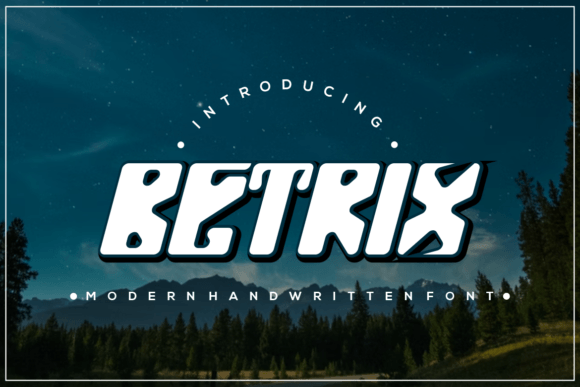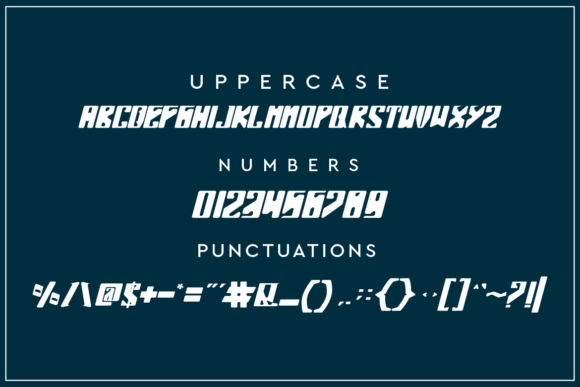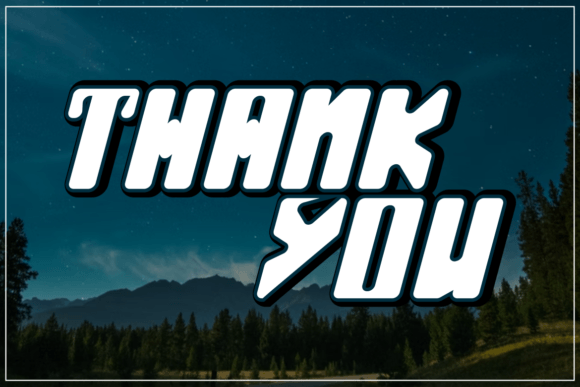
The Quest for the Perfect Font: How Betrix Stole My Heart
I’ll never forget the frustration of working on a design project, hours spent scrolling through font libraries, and yet, nothing seemed quite right. The client wanted a font that exuded elegance, modernity, and class – a tall order, indeed! That’s when I stumbled upon Betrix, a modern display font that has since become my go-to for a wide range of projects.
What Makes Betrix Special?
Betrix is a stunning display font that feels beautiful, classy, elegant, and modern all at once. Its versatility makes it perfectly suited for various projects, such as:
- Signature and stationery design
- Logo creation
- Wedding and event typography
- Magazine or book covers
- Website headers
- Clothing and fashion branding
- Packaging design
What I Love About Betrix ✨
- ✅ Elegant and modern aesthetic
- ✅ Highly versatile and adaptable
- ✅ Extensive OpenType features and glyphs
- ✅ Works beautifully in both digital and print formats
- ⚠️ May not be the best choice for body text due to its display nature
- ⚠️ Some users may find the font too ornate for certain projects
The Story Behind Betrix: Designer Inspiration
Betrix was designed with the goal of creating a modern display font that exudes elegance and sophistication. The designer drew inspiration from classic typography and modern design trends to create a font that feels both timeless and contemporary.
Q: What type of projects is Betrix best suited for?
A: Betrix is a versatile font that can be used for a wide range of projects, including signature and stationery design, logo creation, wedding and event typography, magazine or book covers, website headers, clothing and fashion branding, and packaging design.
Q: Can I use Betrix for body text?
A: While Betrix is a beautiful font, it may not be the best choice for body text due to its display nature. It’s better suited for headlines, titles, and short paragraphs.
Q: Does Betrix support OpenType features?
A: Yes, Betrix supports OpenType features, including stylistic alternates and glyphs. This allows you to experiment with different variations of the font to add visual interest to your designs.
Q: Is Betrix suitable for digital and print projects?
A: Yes, Betrix works beautifully in both digital and print formats. Its elegant and modern aesthetic makes it perfect for a wide range of applications.